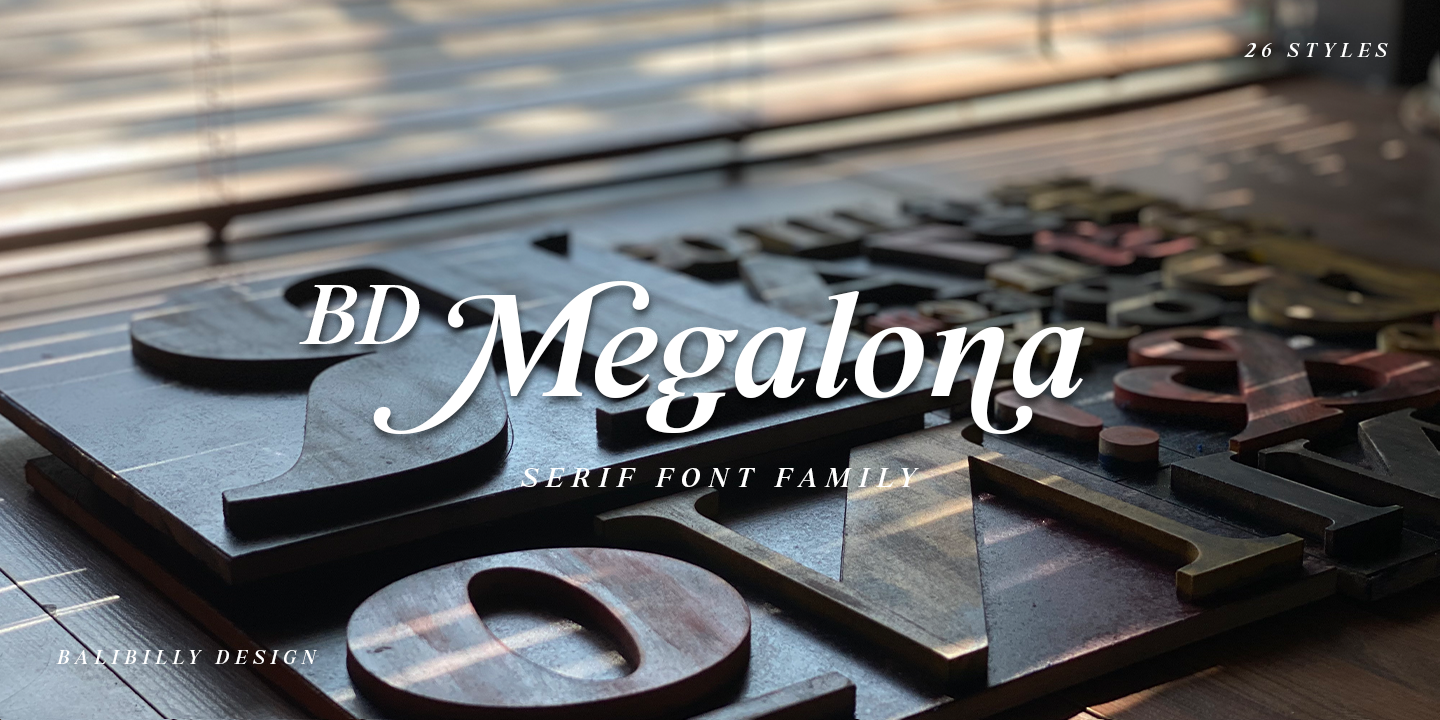
BD Megalona Font is perfect for luxury branding, editorial headlines, high-end packaging, book covers, and elegant invitations. Its classic serif design offers a refined and timeless look that enhances sophistication and readability.
What makes BD Megalona Font Free Download so exciting is its balanced contrast between thick and thin strokes combined with clean, sharp serifs. Inspired by classical Roman inscription styles, it brings a touch of historical grandeur to modern design projects.
The BD Megalona font family includes 26 styles: 13 weights from Thin to Ultra Bold, each with matching true italics. It features an extended character set of over 1800 glyphs, covering 219 languages using Latin, Cyrillic, and Greek alphabets. Advanced OpenType features include stylistic and contextual alternates, swashes, discretionary ligatures, small capitals, old-style figures, and more.